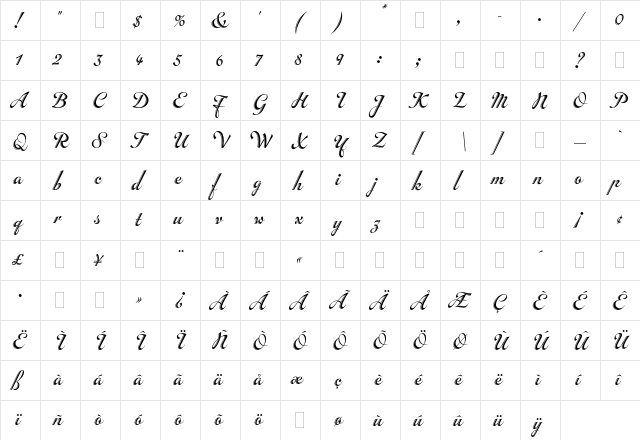
Inscription Plain
Design Context for Inscription Typeface
Inscription brings a calligraphic fluidity to the page — its connecting strokes and expressive curves give it an unmistakably human quality.
Font Pairing: Combine Inscription with a simple geometric sans for maximum contrast — the tension between flowing curves and clean structure is a classic typographic pairing.
Pro Tip: Pair Inscription with a clean sans-serif for supporting text. The contrast between fluid script and geometric structure creates an elegant typographic hierarchy.